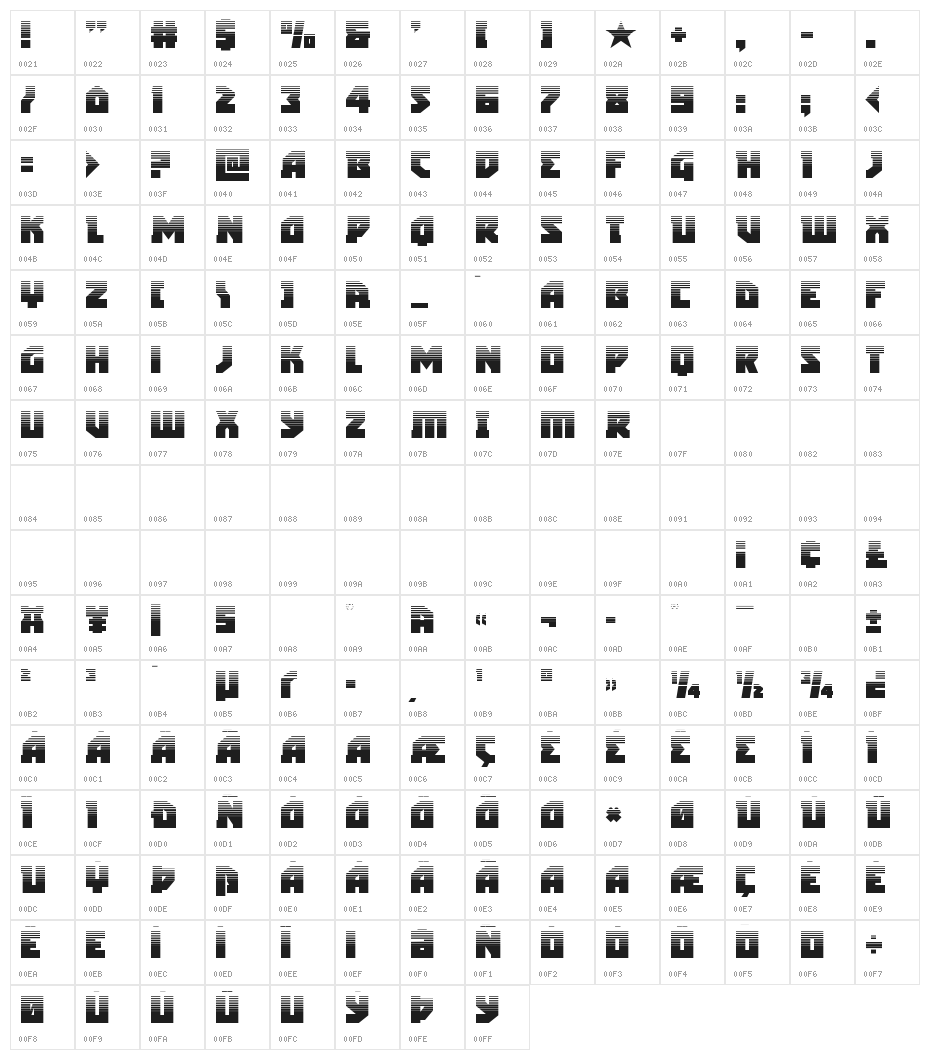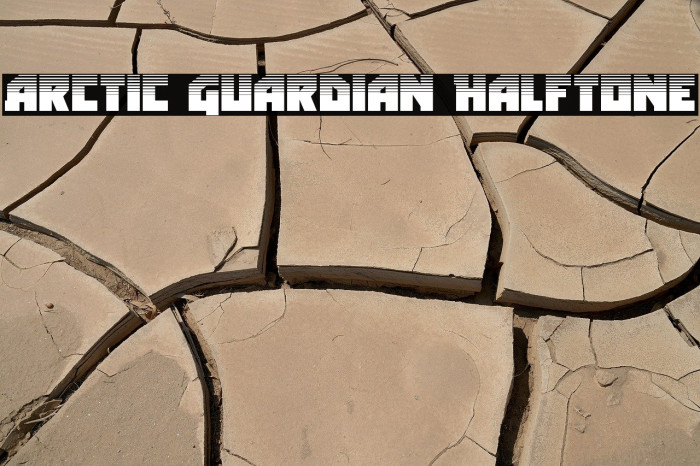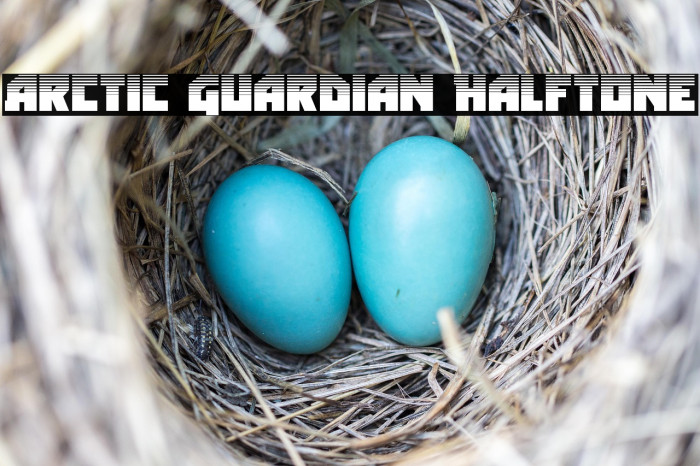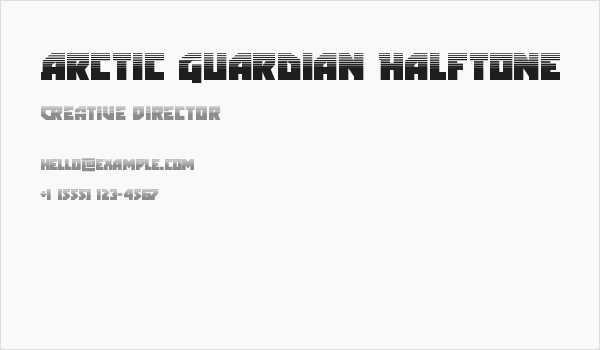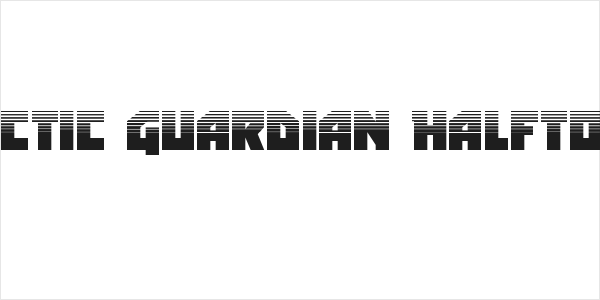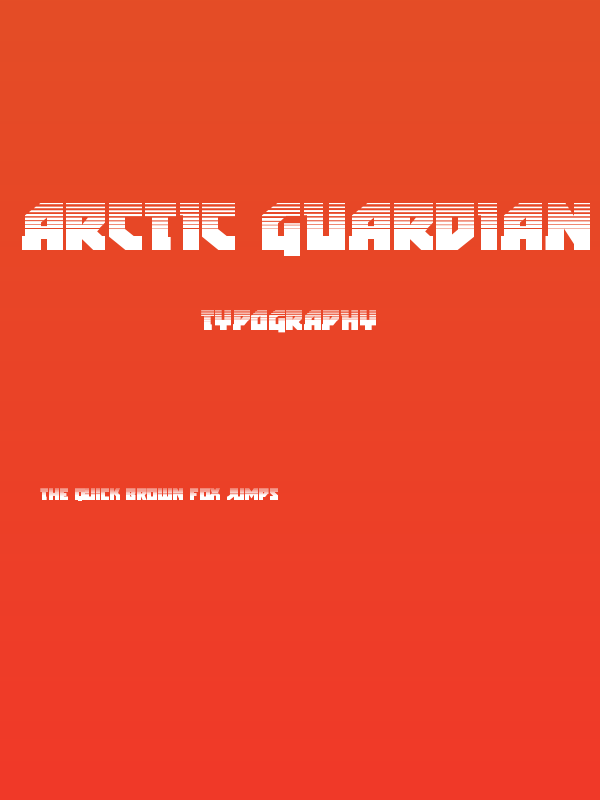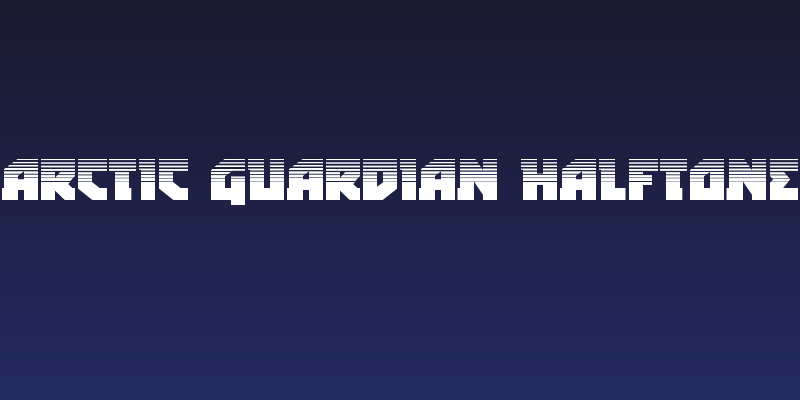
Arctic Guardian Halftone Font
Arctic Guardian Halftone Description
This font features a bold, geometric design with a unique halftone effect. Each character is constructed with a series of horizontal lines that create a gradient-like appearance, giving it a modern and futuristic feel. The uppercase and lowercase letters maintain a consistent style, with sharp angles and a blocky structure. The numbers and special characters follow the same design principles, ensuring uniformity across all glyphs. This font is highly decorative and stands out due to its distinctive pattern and strong visual impact.
| Proposed Projects | Ideal for futuristic designs, tech-related branding, posters, and digital artwork. |